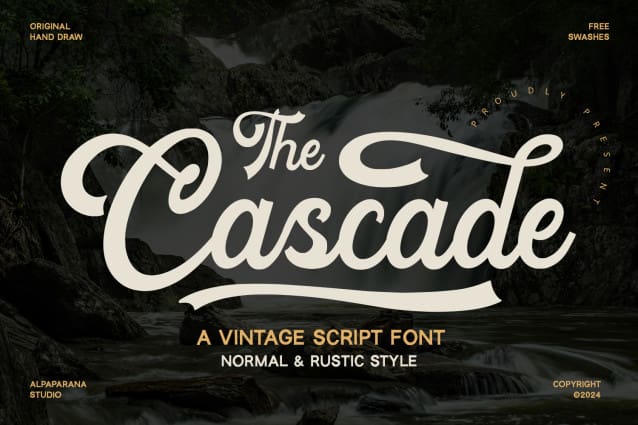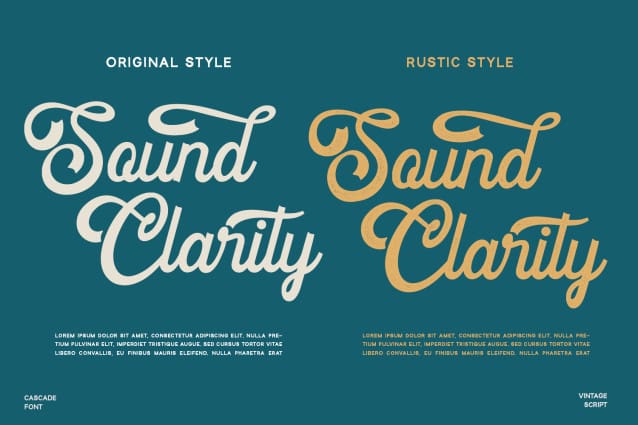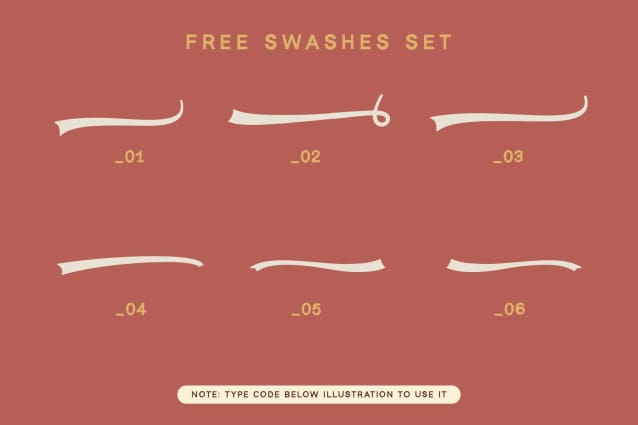
Cascade Script Font
Cascade Script Font is a vintage script font with authentic and classic feels. It will be perfectly used for Branding, Logo Design, Lettering, Logotype, Clothing, Poster, magazine, packaging, posters, shopping bags, t-shirts, book covers, photography, special events and other design project.